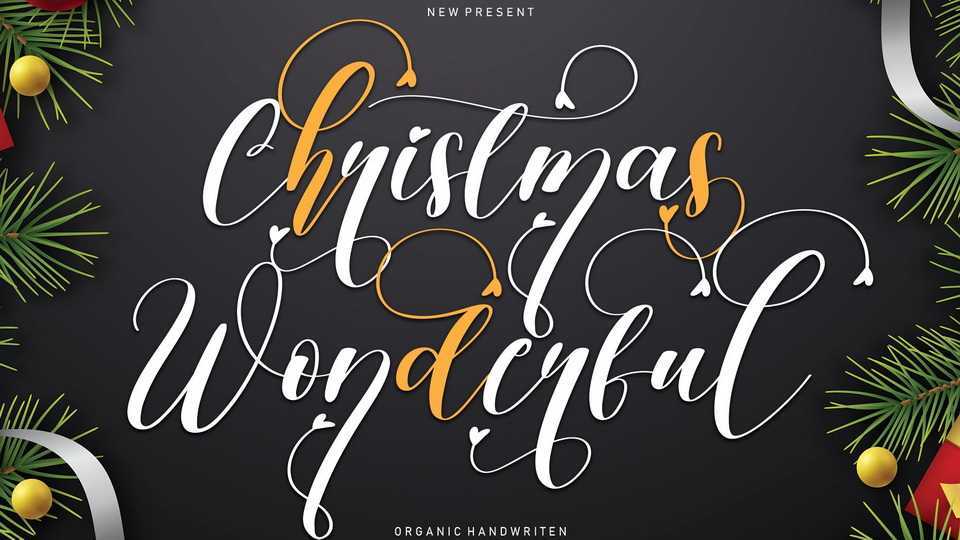
Download Christmas Wonderful font, a modern and fancy calligraphy typeface made of beautiful decorative strokes. Christmas Wonderful font is perfect for your creative ideas, both formal and informal.